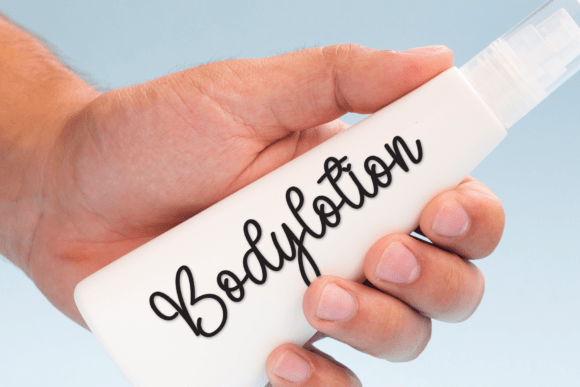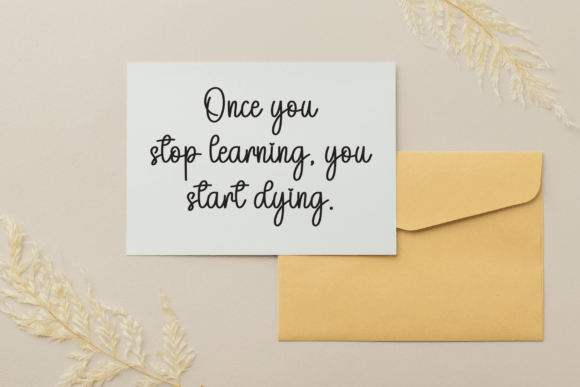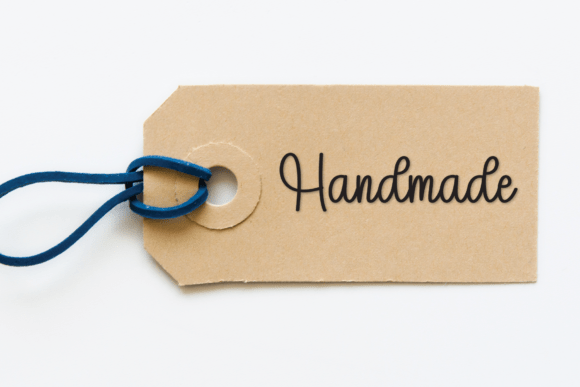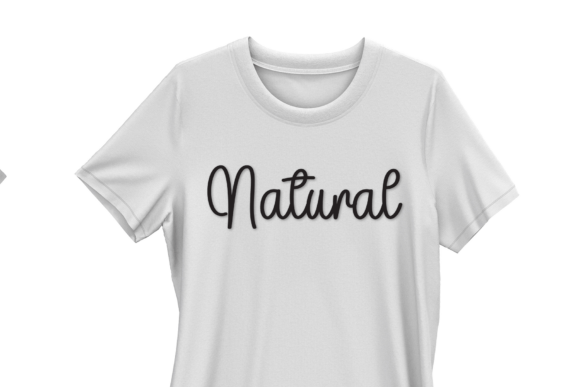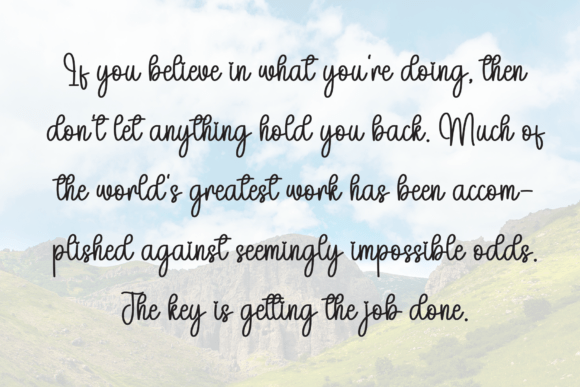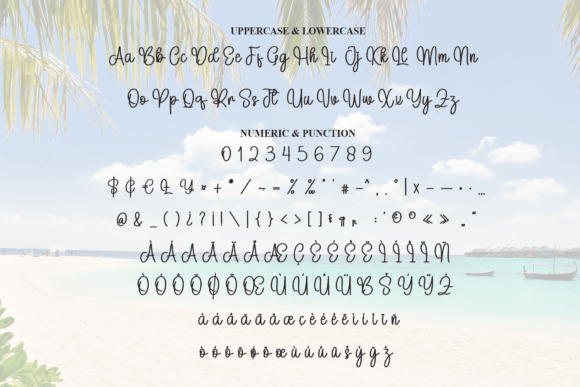
The Perfect Script for Your Next Design Project
As designers, we’ve all been there – staring at a blank page, trying to come up with the perfect font to match our creative vision. Sometimes, it’s the simplest moments that spark the most inspiration. For me, it was a lazy Sunday afternoon, sipping coffee and browsing through design inspiration boards on Pinterest. That’s when I stumbled upon the Beaching Font, a stunning script font that stole my heart with its elegant strokes and fluid curves.
Beaching Font is more than just a pretty face – it’s a versatile tool for designers looking to add a touch of sophistication to their projects. Whether you’re creating logos, invitations, packaging, or social media graphics, this font delivers both visual appeal and refinement. With its natural flow and polished details, Beaching Font is a valuable addition to any designer’s toolkit.
Beaching Font Key Features
- Unique Characteristics: Beaching Font features a unique, hand-drawn style with a mix of geometric and organic elements, creating a visually appealing and eye-catching design.
- Legibility and Readability: Despite its unique appearance, Beaching Font is highly legible and readable, making it suitable for a variety of design applications.
- Font Pairing Options: Beaching Font can be paired with a wide range of font styles, from modern sans-serifs to classic serif fonts, to create visually striking combinations.
- Font Size and Scaling: Beaching Font is designed to be highly scalable, allowing it to be used effectively in a range of font sizes, from small captions to large headlines.
Beaching Font Review
Overall, I think Beaching Font has some great qualities that make it a solid choice for certain design projects. Here are a few things that stand out to me:
- ✨ Beautiful, natural feel: The Beaching Font has a very organic and natural feel to it, which makes it perfect for projects that need a laid-back, beachy vibe.
- ✨ Great for body text: Despite its casual feel, the font is actually very readable and works well for body text, making it a great choice for articles, blog posts, and other written content.
- ✨ Versatile: Beaching Font comes in a range of weights and styles, making it easy to use in a variety of different contexts.
- ⚠️ Limited use in headlines: While Beaching Font is great for body text, it’s not the most attention-grabbing font for headlines. If you need a font that’s going to stand out, you may want to consider something else.
- ⚠️ Limited range of languages supported: Beaching Font only supports a limited range of languages, which may be a problem if you need to use it for a multilingual project.
Overall, I think Beaching Font is a solid choice for design projects that need a casual, natural feel. While it may not be the best choice for every project, it’s definitely worth considering for the right use cases.
The Beaching Font is a versatile font that can be used in a variety of designs, including:
- Beach-themed designs, such as beach vacation ads or surfboard graphics.
- Summer-themed designs, such as summer concert posters or ice cream shop menus.
- Outdoor-themed designs, such as park signs or hiking trail maps.
For optimal results, use the Beaching Font in combination with other beach-inspired graphics, such as palm trees, seashells, or waves.
Alternatives to Beaching Font
Open Sans is a clean and modern sans-serif font suitable for body text and titles. It is highly legible and versatile, making it a great choice for digital products, websites, and print materials. Open Sans is more geometric and less rounded than Beaching Font, giving it a more contemporary feel.
Lato is a modern sans-serif font with a friendly and approachable feel. It is highly legible and works well for body text and titles. Lato is more rounded and softer than Beaching Font, making it a great choice for applications where a more relaxed tone is desired.
Beaching Font is a highly customizable font. You can adjust the font’s weight, style, and other attributes using the OpenType features. Additionally, you can use font editing software to modify the font’s glyphs and create custom variations.
What is the recommended font size and line height for Beaching Font?
The recommended font size for Beaching Font is between 12 and 24 points. For optimal readability, we recommend a line height of at least 1.5 times the font size. This will ensure that the text remains clear and legible, even at smaller font sizes.